2 Google Fonts Similar to Campton
Campton is a sans-serif font that was designed by Rene Bieder. It features an unique capital C. It was inspired by other fonts such as Gill Sans and Johnston Sans, but comes with it's own contemporary elements. It is a great choice for web and editorial design.
Campton is a great looking sans-serif that is easy to read. Luckily, I was able to find 2 similar looking fonts within the Google Font library.
What Google Fonts are Similar to Campton?
The most similar looking fonts to Campton from the Google Font library are:
- Questrial
- Poppins
Either one of these fonts would make for a great alternative.
Below I will cover the differences and similarities between the two.
Questrial
Questrial is a great alternative to Campton because of how similar they look. In the lowercase form, they are almost the same.
You will find some differences with the "g" and "j" in lowercase.
Uppercase letters are also very similar. The main differences are in the "Q" and "M".
Otherwise their two alphabets are very identical.
Go ahead and compare for yourself.
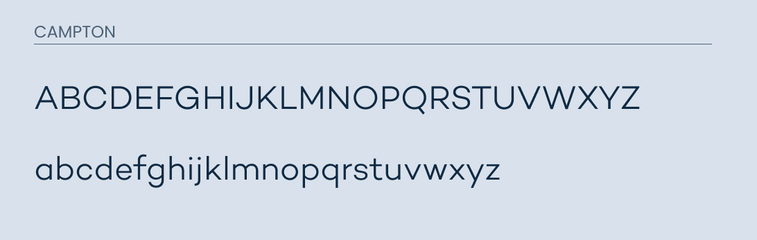
Poppins
Poppins is a very popular sans-serif font that looks a lot like Campton. This means that they it would make for a great alternative.
The lowercase is nearly identical. It seems that some of the letters are a little wider in Poppins, but the shape of the letters is the same.
Uppercase is also very similar. However, if you pay close attention you will notice some differences with the "G", "J", and "M".
Overall, it is pretty close and would make for a choice secondary choice.
Final Thoughts
Both Questrial and Poppins would work for great alternative fonts for Campton. They are both similar in nature and even give off the same look and feel. Either one would be a great choice.